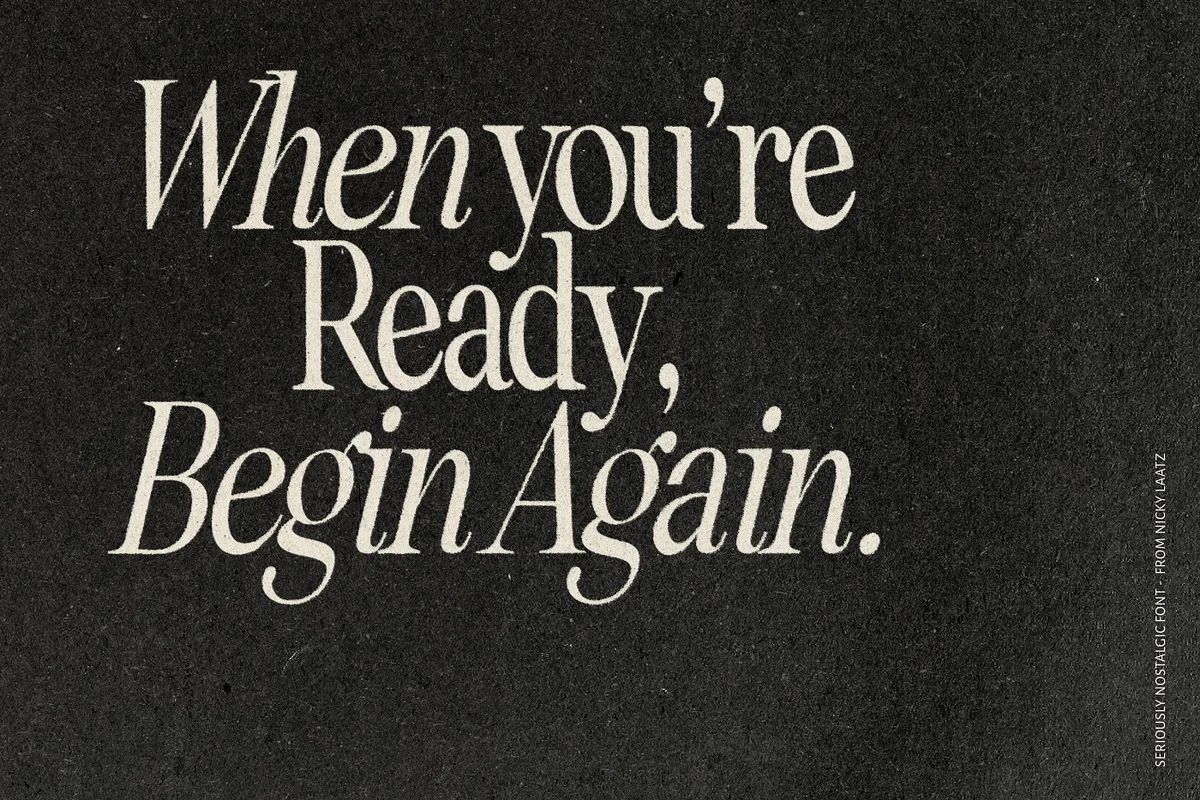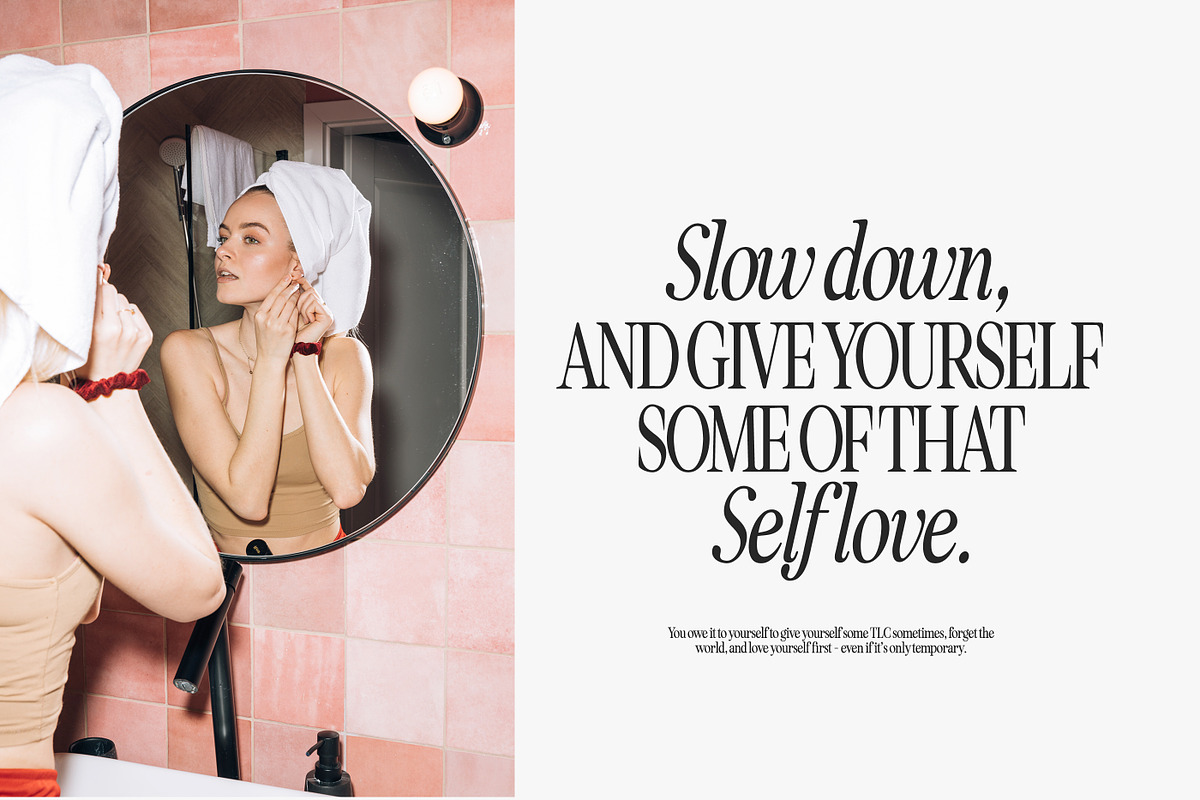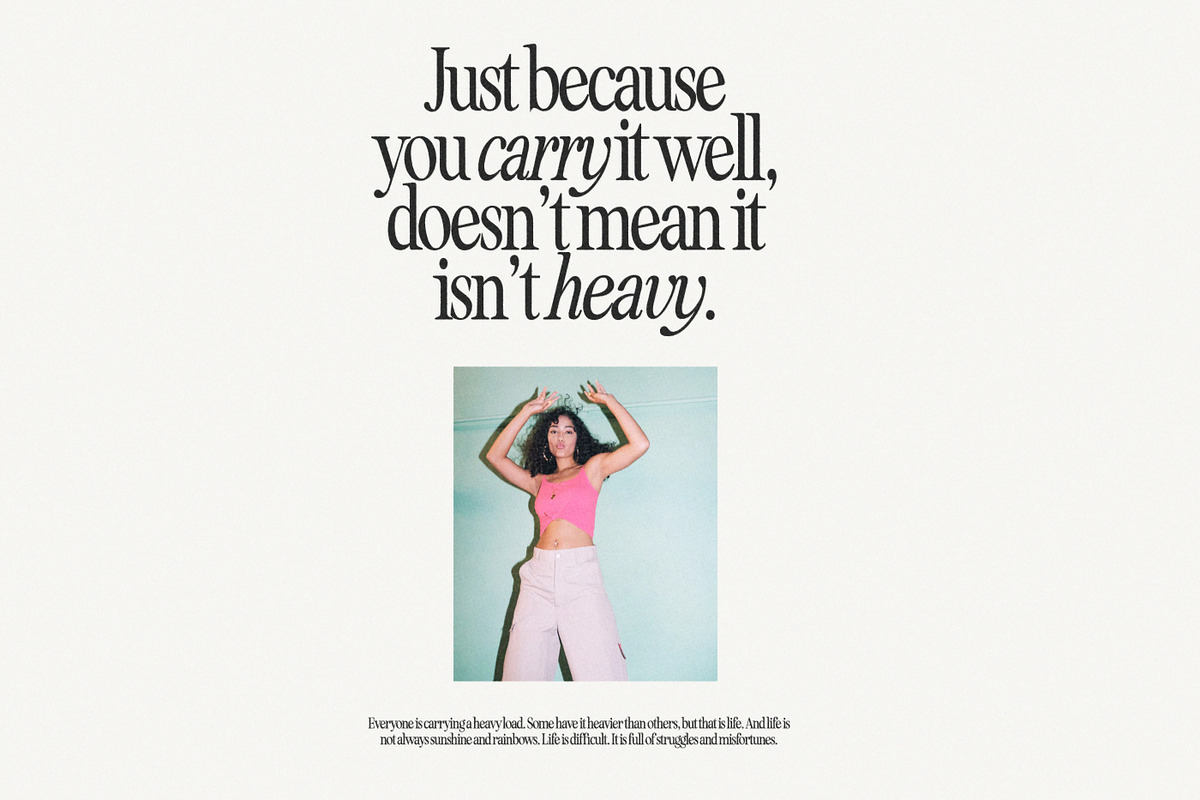
Seriously Nostalgic is a classy eighties magazine inspired serif font with a complementary italic version. Both come in two versions one with more contrast and crisper than the other. In true Eighties style, they also come in varying degrees of Condensed form – mix and match them to create eye-catching effects. It is perfect for various designs such as beauty designs, elegant crafting, layout designs, ad branding, design templates, etc. Don’t forget to use all caps too in your mixing and matching – it adds contrast and impact to your type design.